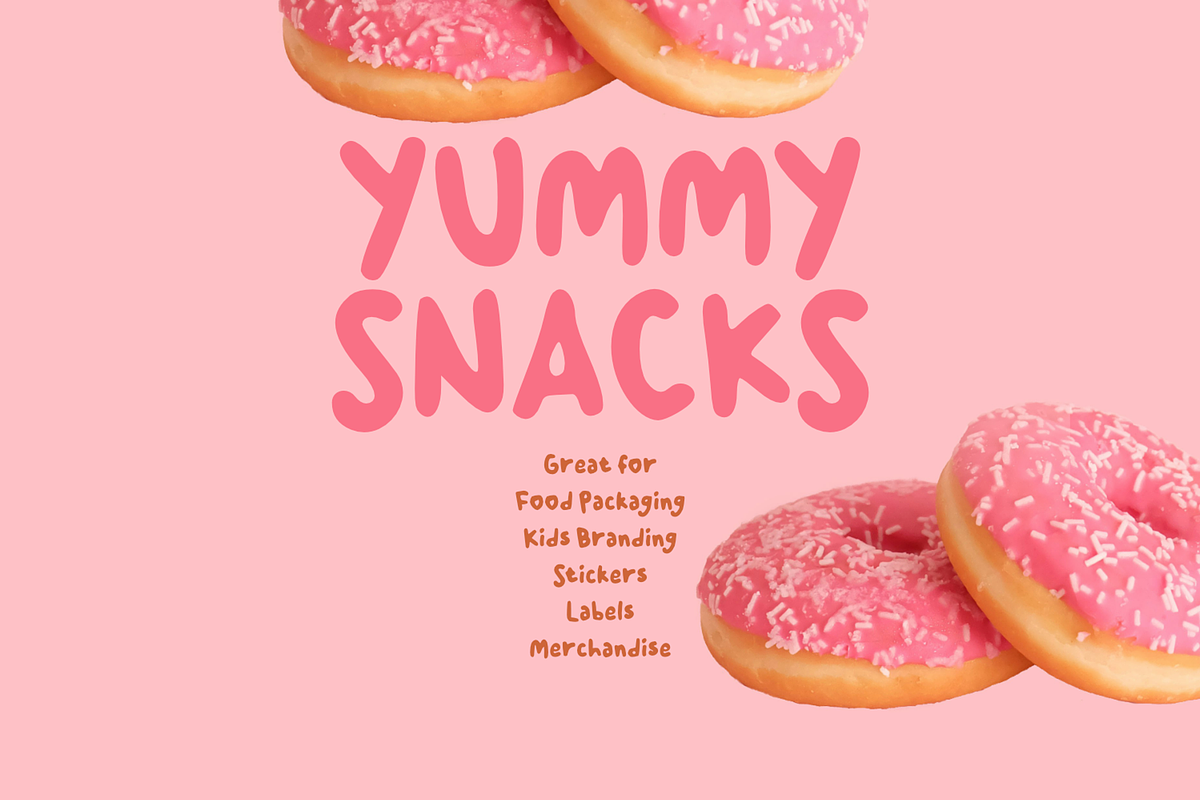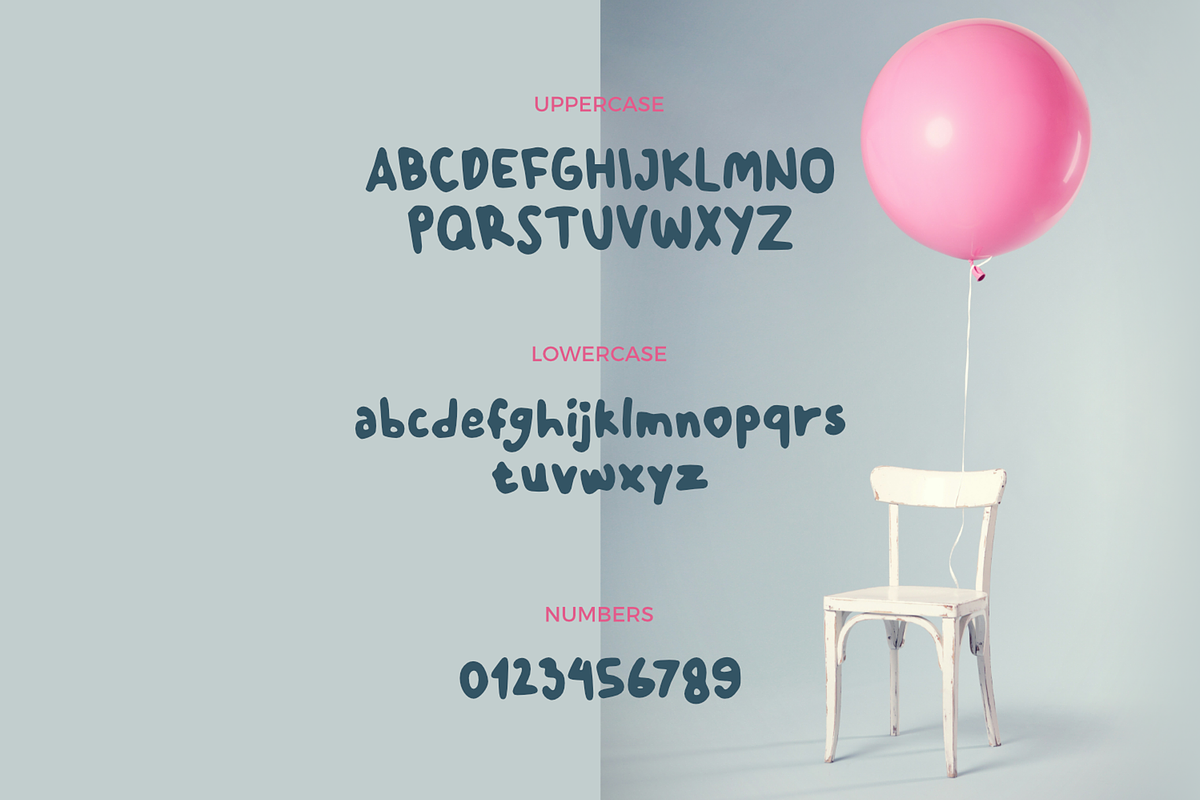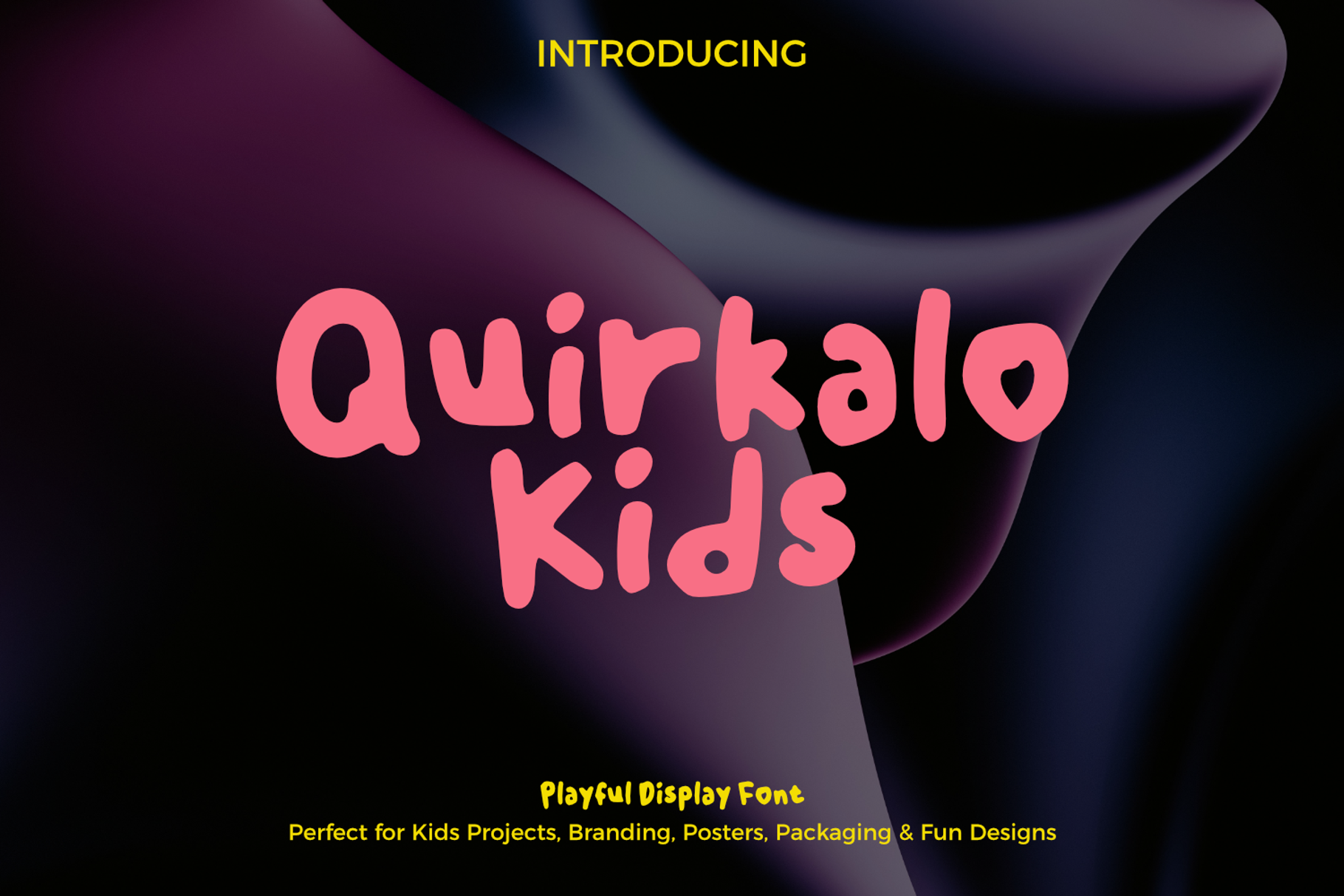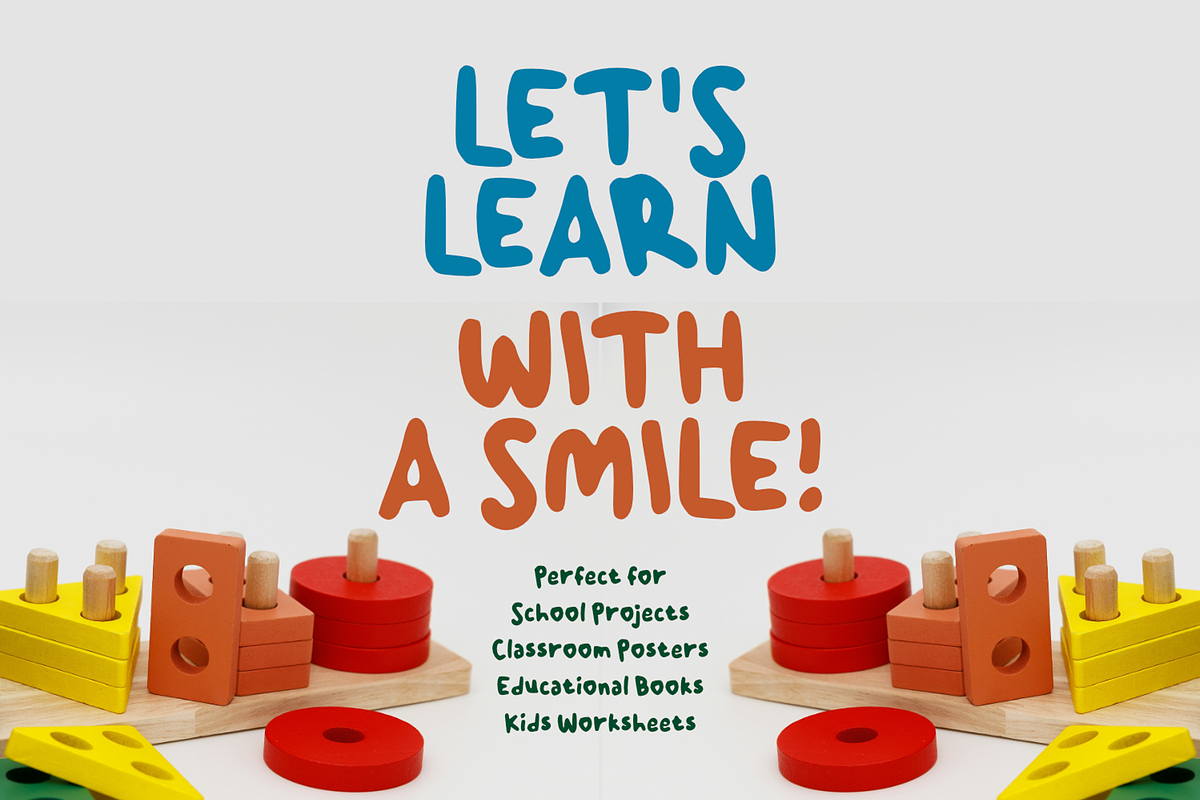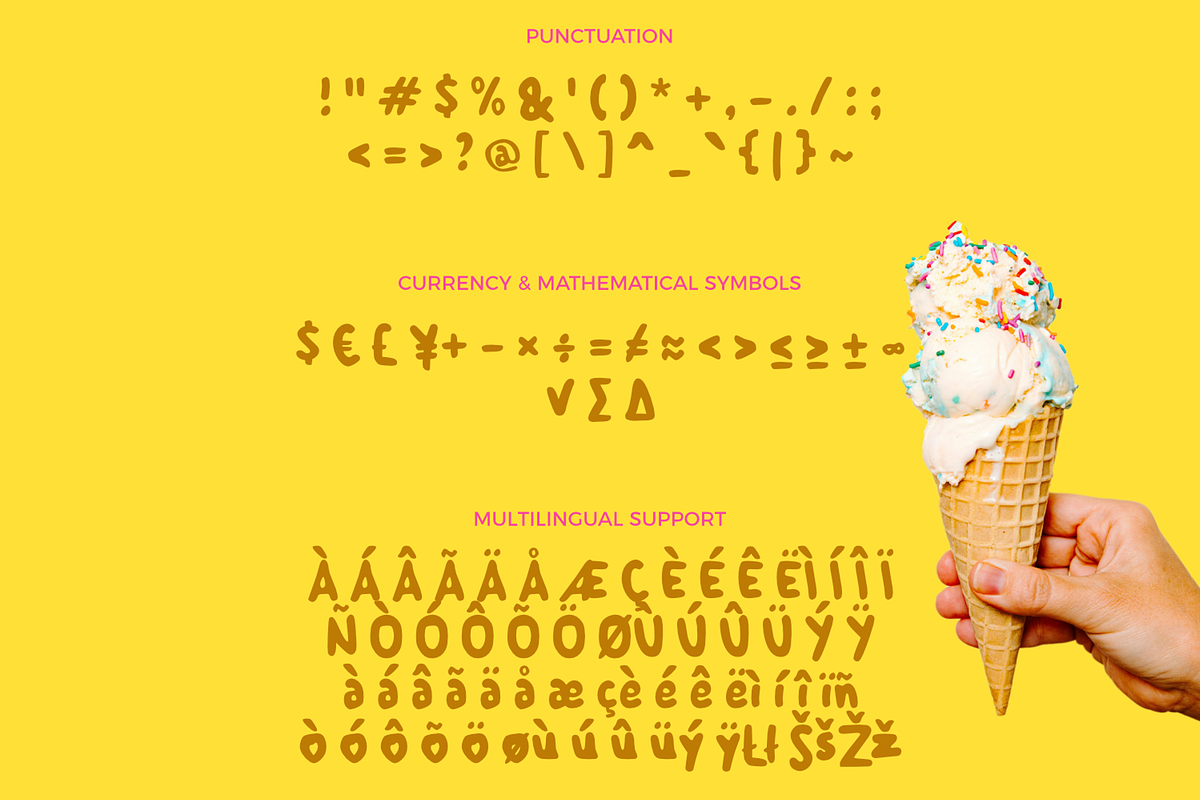
Quirkalo Kids Playful Display Font
Quirkalo Kids is a playful display font that brings fun, imagination, and creativity to every design. Featuring chunky hand-drawn letterforms with a friendly personality, this font is perfect for children's books, educational materials, birthday invitations, toy packaging, branding, posters, social media graphics, and playful merchandise. Its bold and cheerful appearance makes every word stand out while adding a warm, joyful, and approachable feel. Whether you're creating designs for kids or simply want a whimsical touch, Quirkalo Kids is the perfect choice to make your projects lively and memorable.